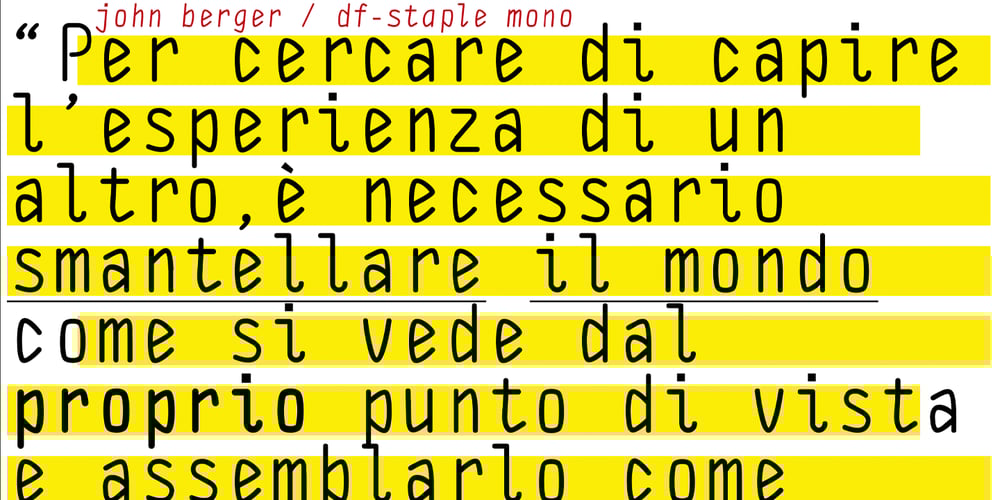
DF Staple Mono Font Family was designed by Ko Sliggers and published by Dutchfonts. DF Staple Mono contains 10 styles and family package options. DF Staple Mono is a personal answer on the archaic and ‘middle-of-the-road’-forms of typewriter typefaces like ‘Courier’ and ‘American Typewriter’. The form of a staple (office supply no. 1) and its transformations inspired me during the design process. The first four weights are all monospaced and are completed with a real italic.